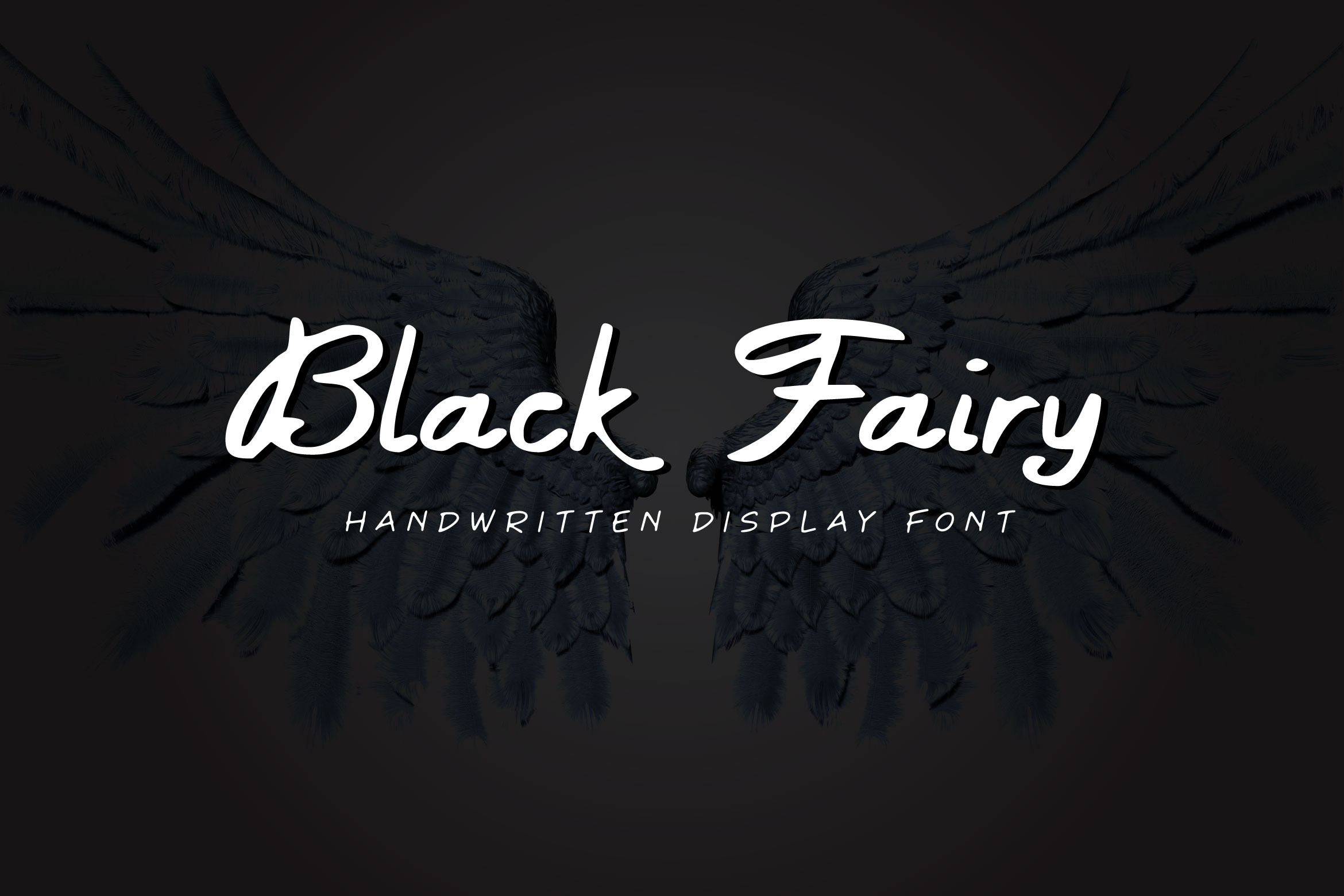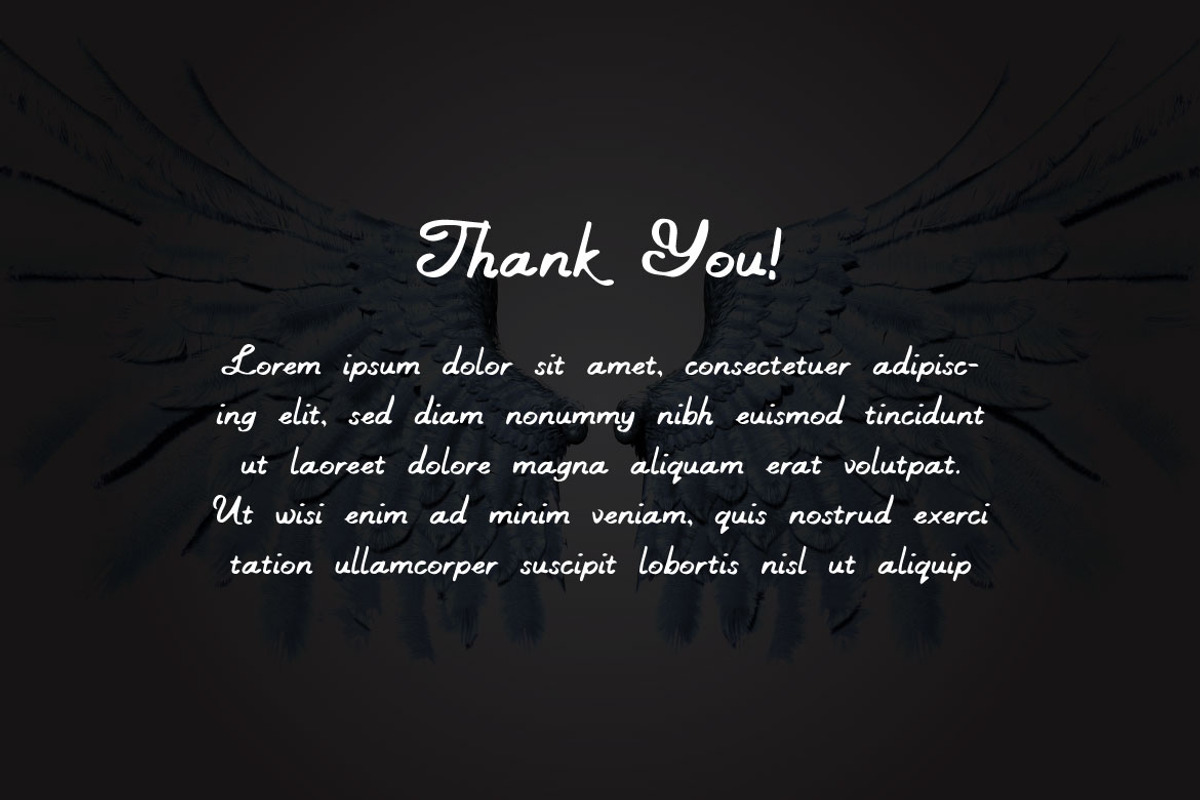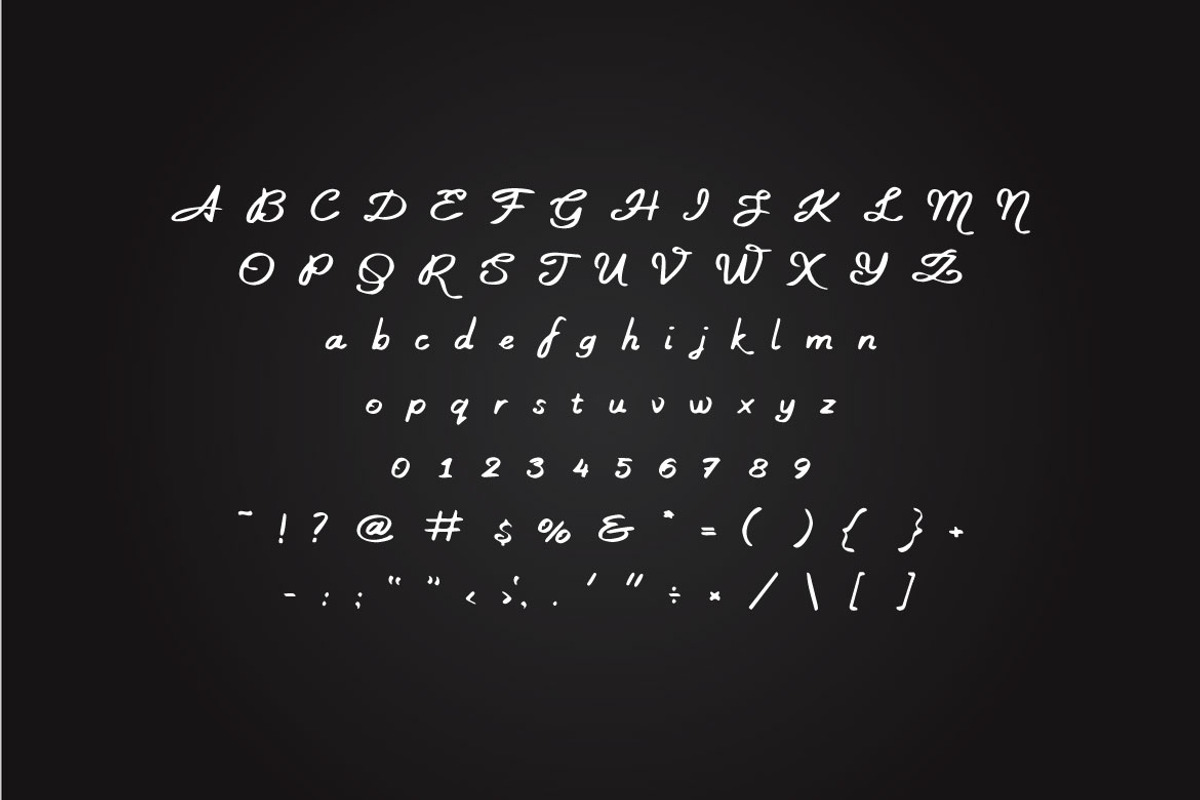
Black Fairy - Script Font
BLACK FAIRY is a simple handwritten font. The look of the font is small, elegant, and modern. Black Fairy can be used in any works such as wedding invitation, book, poster, advertisement, social media content, logo and many more.